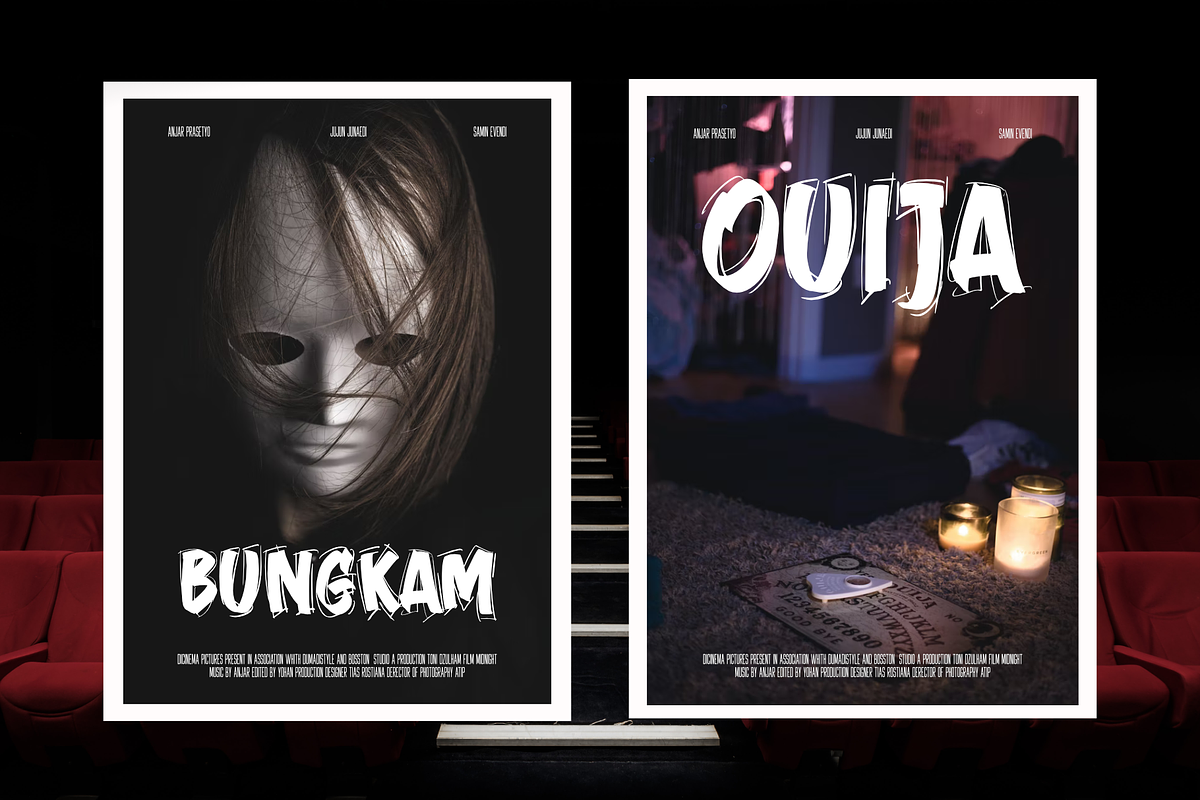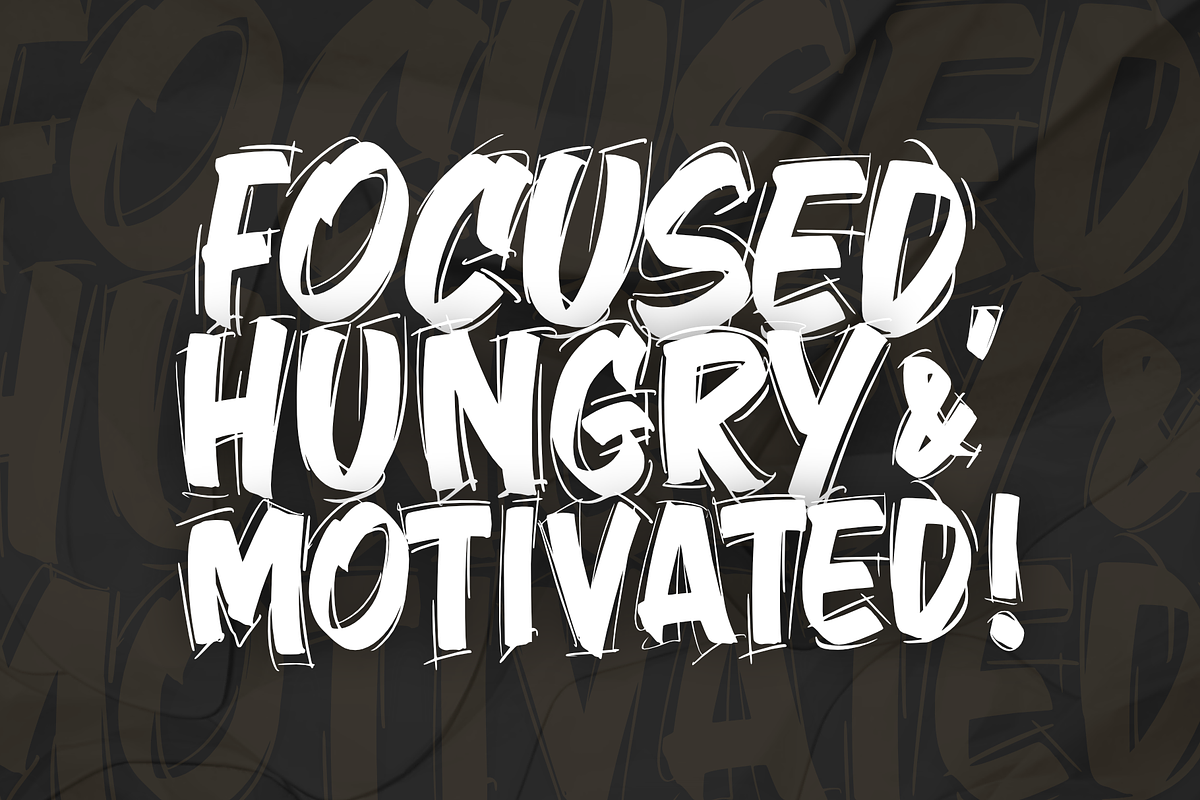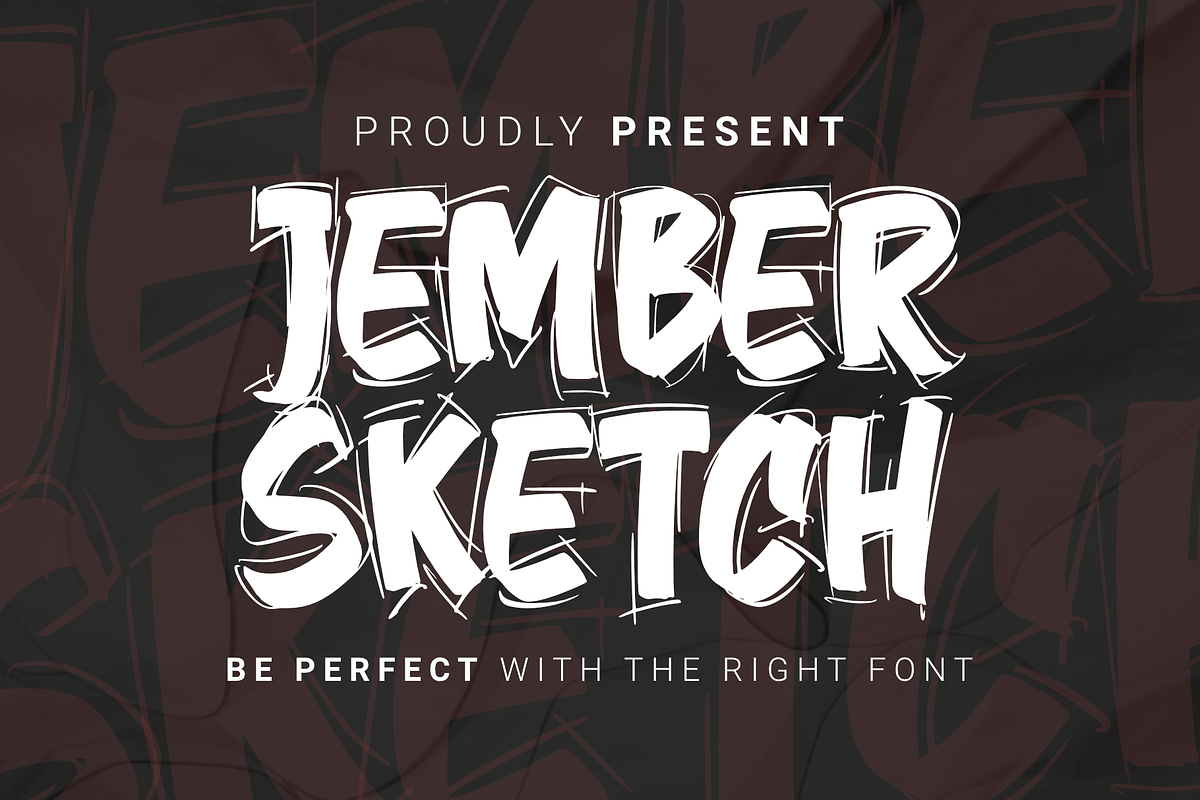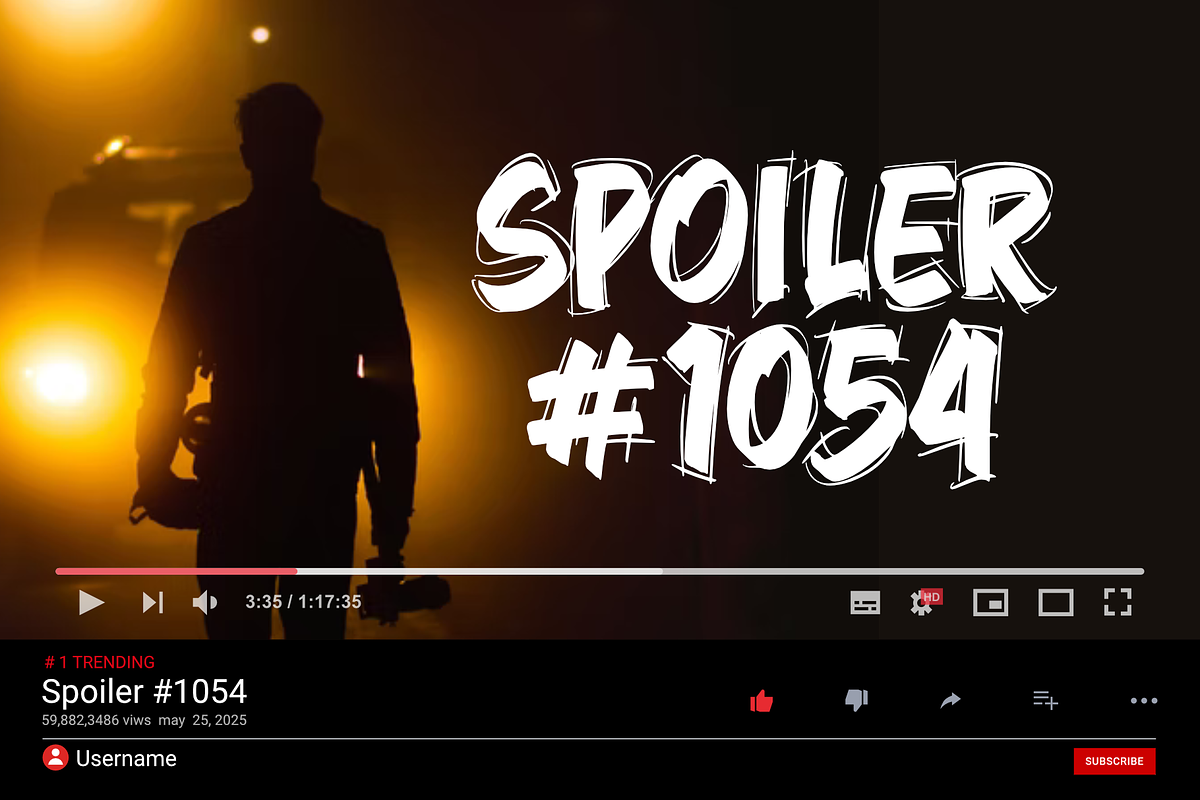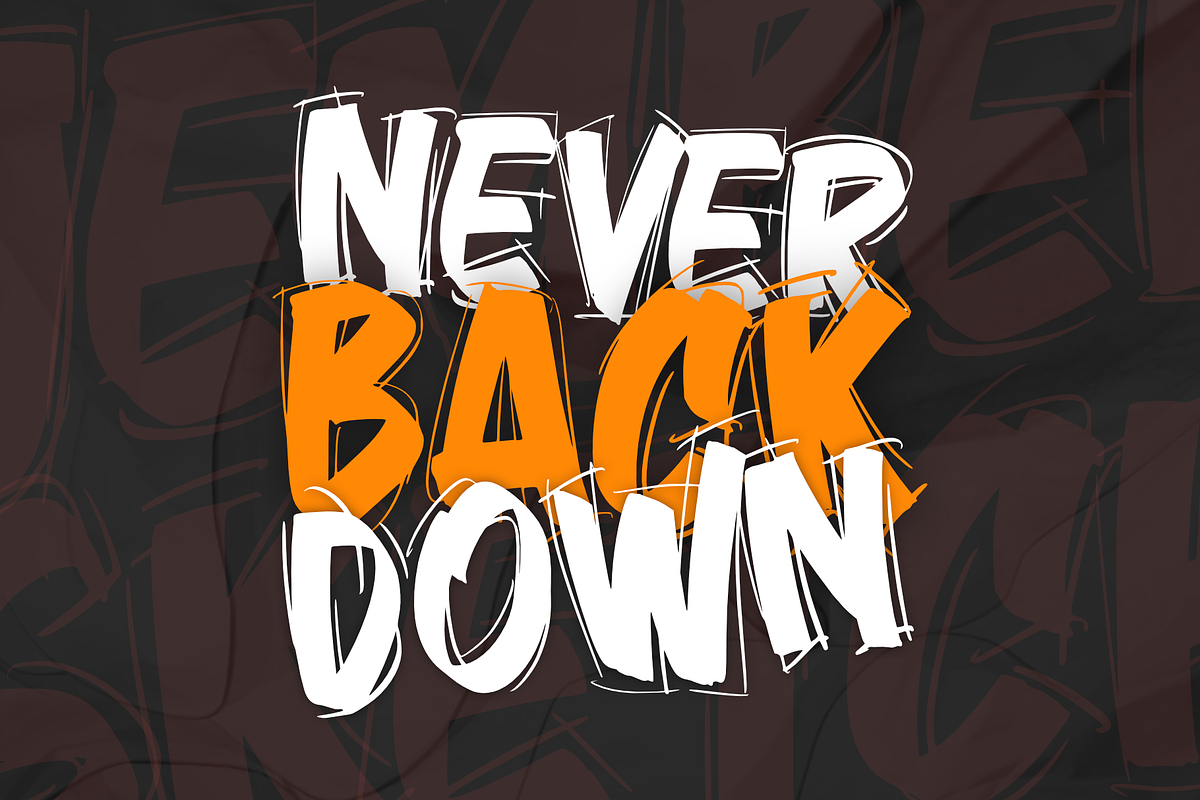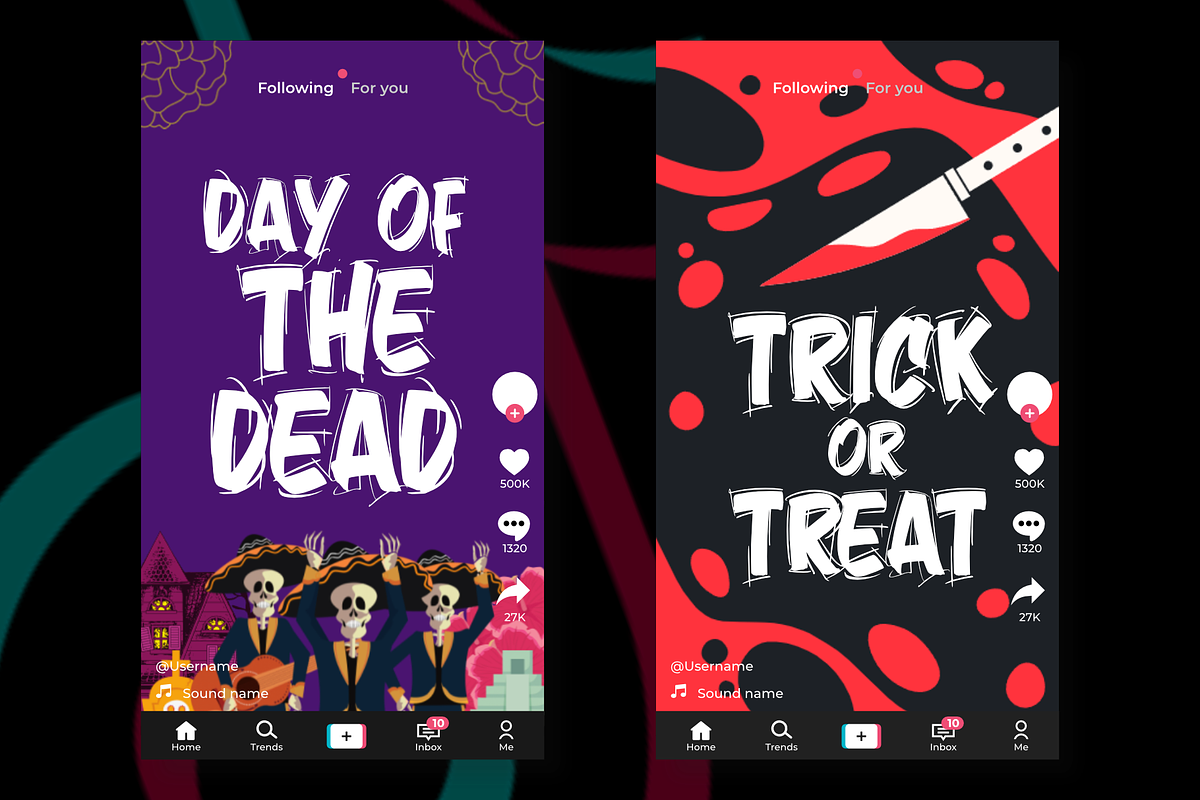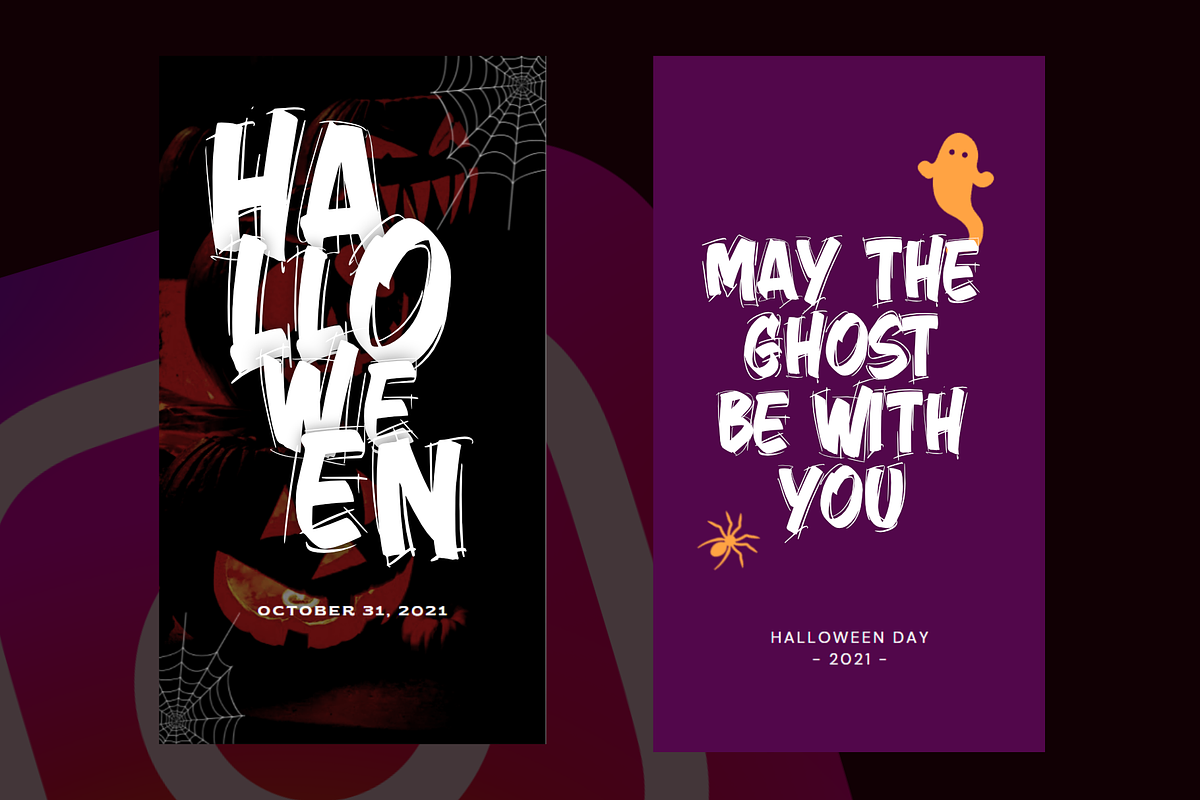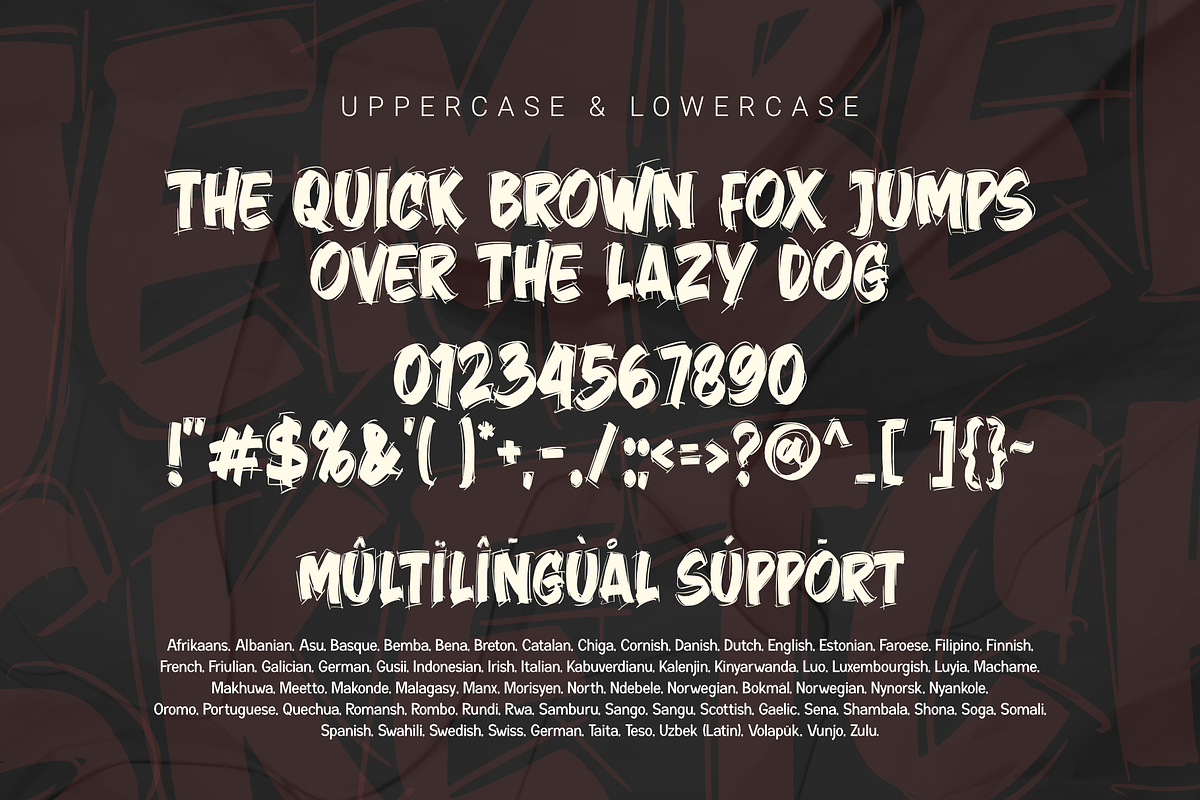
Jember Sketch
This font Jember Sketch is based on a sketch pen. You'll feel the special feeling in each character.
It would be very good for logos, branding, poster, advertising, and packaging design. You can use this font to add emotions and emphasize what you want to get across to the audience.
- Allcaps
- Multilingual Accent